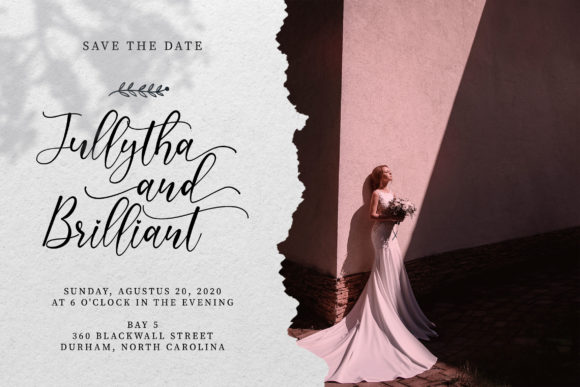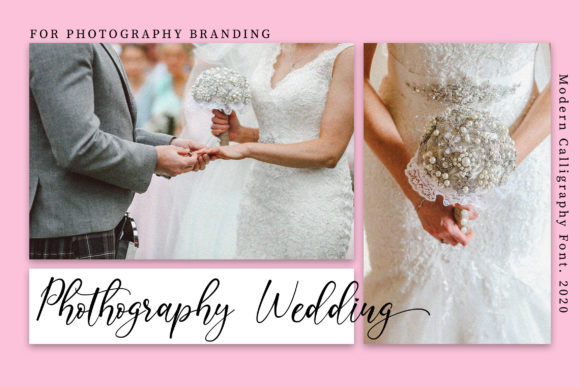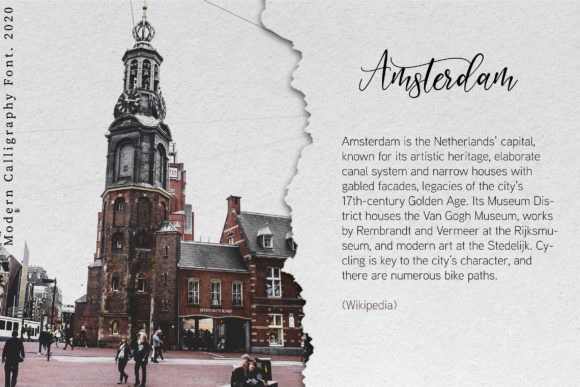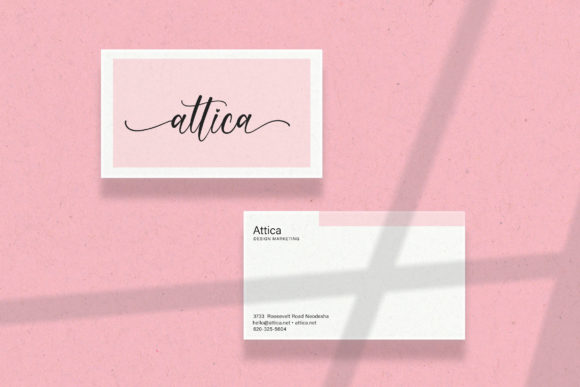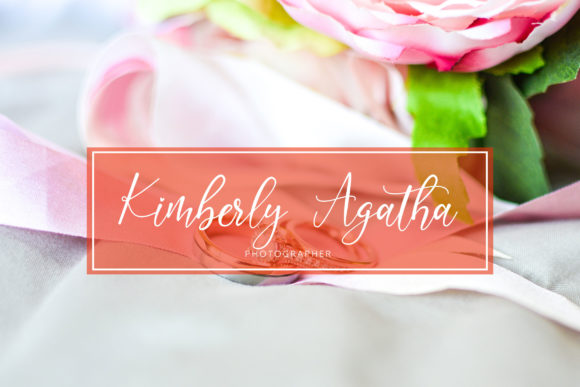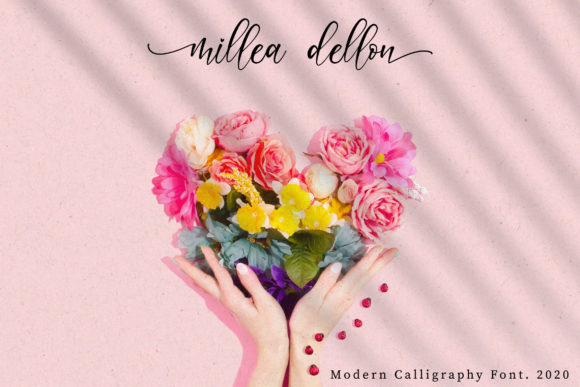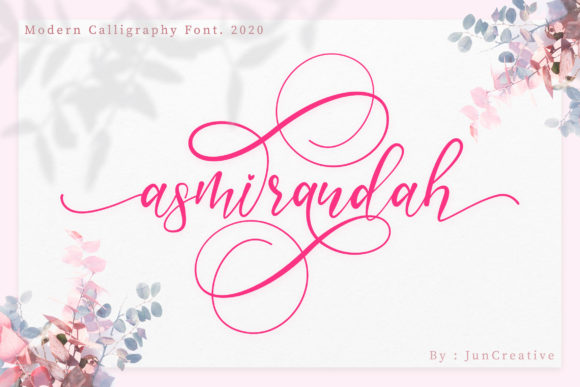
The Magic of Asmirandah Font: Elevate Your Designs with Elegance
I’ll never forget the time I was working on a wedding invitation project, and my client asked for a font that would make their special day feel like a fairytale. I scoured the internet, tried countless fonts, but nothing seemed quite right. That was until I stumbled upon Asmirandah Font. Its stunning script and rich swashes instantly captivated me, and I knew I had found the perfect fit. In this article, I’ll share my love for Asmirandah Font, its features, and how to make the most of it in your designs.
An Honest Review of Asmirandah Font
• ✨ Gorgeous script font with elegant swashes
• ✅ Highly versatile and pairs well with various design styles
• 💫 Beautifully crafted to add a touch of sophistication to any project
• 🎨 Extensive range of glyphs and stylistic alternates for creative freedom
While Asmirandah Font is an exceptional font, there are a few things to keep in mind:
• ⚠️ Some swashes might not work well with certain letter combinations
• 🤔 Can be a bit overwhelming for beginners due to the vast number of glyphs and features
The Story Behind Asmirandah Font
Asmirandah Font was crafted with love and dedication by a team of skilled designers. The font’s name is inspired by the beauty of nature and the elegance of handwritten scripts. The designers aimed to create a font that would add a touch of sophistication to any design project, while still being versatile and easy to use.
What makes Asmirandah Font unique? Asmirandah Font stands out with its stunning script and rich swashes, making it perfect for designs that require elegance and sophistication.
Is Asmirandah Font difficult to use? While Asmirandah Font has a lot to offer, it can be a bit overwhelming for beginners. Take some time to explore its features, and you’ll be creating stunning designs in no time!